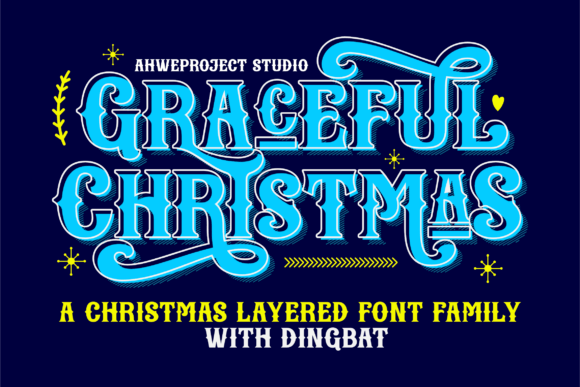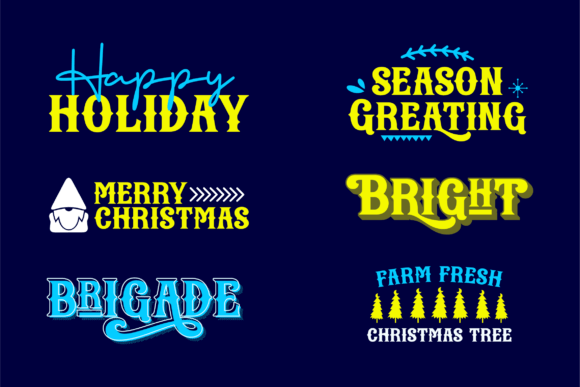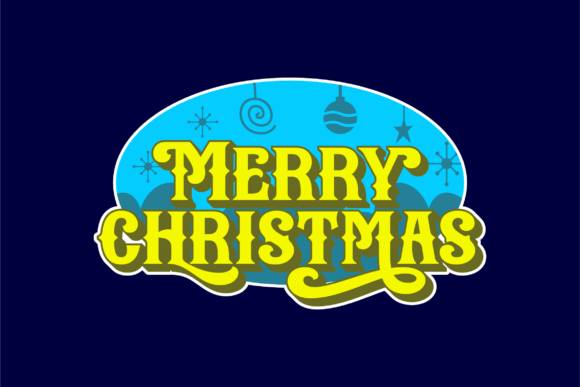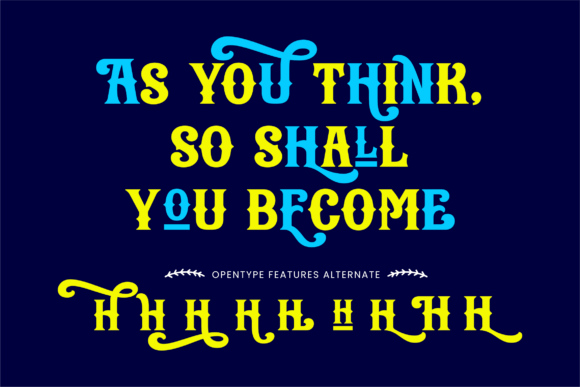
Graceful Christmas Font: Festive Layered Typeface for Holiday Designs!
About the Graceful Christmas Font
Let us introduce you to Graceful Christmas Font, where timeless design meets modern craftsmanship. Introducing Graceful Christmas, a festive and elegant layered font perfect for holiday designs! With its bold, decorative letterforms and intricate details, this typeface captures the spirit of Christmas. The font combines vintage flair with modern layering effects, making it a versatile choice for creating standout designs.
Graceful Christmas includes a range of embellishments and dingbats that add a joyful, seasonal touch to any project. Ideal for Christmas cards, invitations, posters, and festive branding, this font family provides endless creative possibilities for a memorable holiday season.
Graceful Christmas Font Usage Examples
Graceful Christmas Font Example